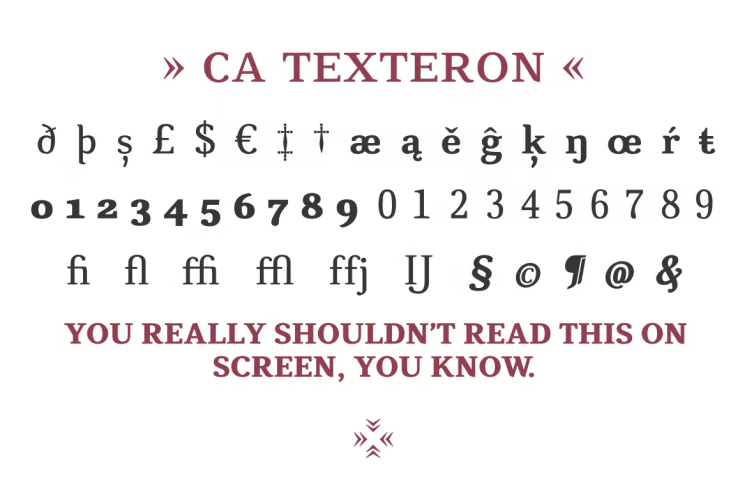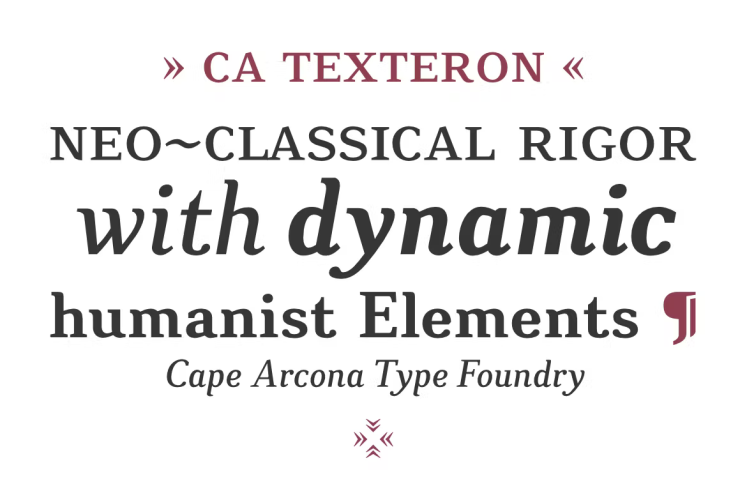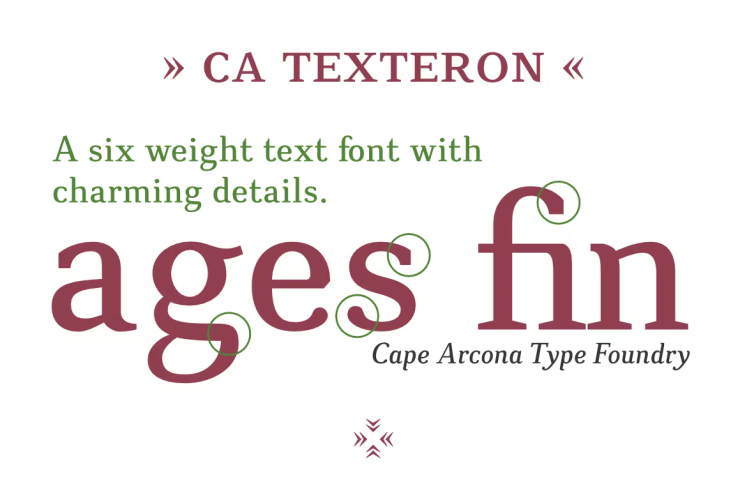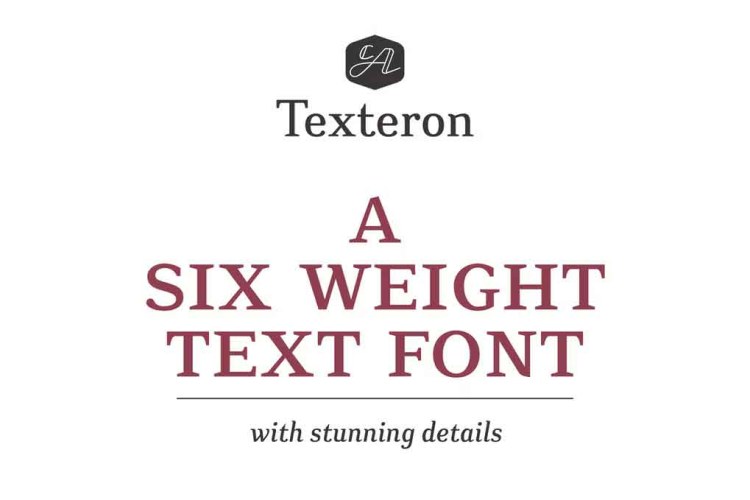
CA Texteron Font
CA Texteron is a modern text font family to cover the most common typographical needs with a minimum of weights. It’s aiming for a serious but unconventional look, which…
CA Texteron is a modern text font family to cover the most common typographical needs with a minimum of weights. It’s aiming for a serious but unconventional look, which is achieved by combining round and edgy forms in the same font, often in the same glyph, and by using Humanist and modern form-principles at the same time. It merges classical type-design with an experimental spirit. CA Texteron combines elements of the dynamic renaissance principle with the static neo-classic style, which makes it hard to classify. The result is a post-modern hybridization.
The Regular weight works best in text size, and with more letter-space also for footnotes. The low contrast makes it robust and legible even in very small sizes. Bold, Italic and Small Caps are intended for emphasis. Bold, Bold Italic and Heavy make good headlines, that reveal the unconventional details. The Italic is not just a slanted version of the Regular weight but has individual forms and typical italic characteristics.
Where CA Texteron Font works best
Reports, white papers and book interiors hold the eye longer when the text face has real serifs; CA Texteron Font keeps that rhythm without looking old-fashioned.
Food, spirits and cosmetics brands lean on serif wordmarks to suggest age and care. CA Texteron Font gives that signal at wordmark size.
Set CA Texteron Font for the body of an award or a diploma and keep the recipient name in a script; the pairing is what makes a document feel official.
What kind of work does CA Texteron Font suit?
It sits in the Serif Fonts group and reads as bold, classic, humanist, modern. That makes it a candidate wherever those qualities help: headings, packaging, social graphics and brand work. Set it at the size you plan to use before deciding.